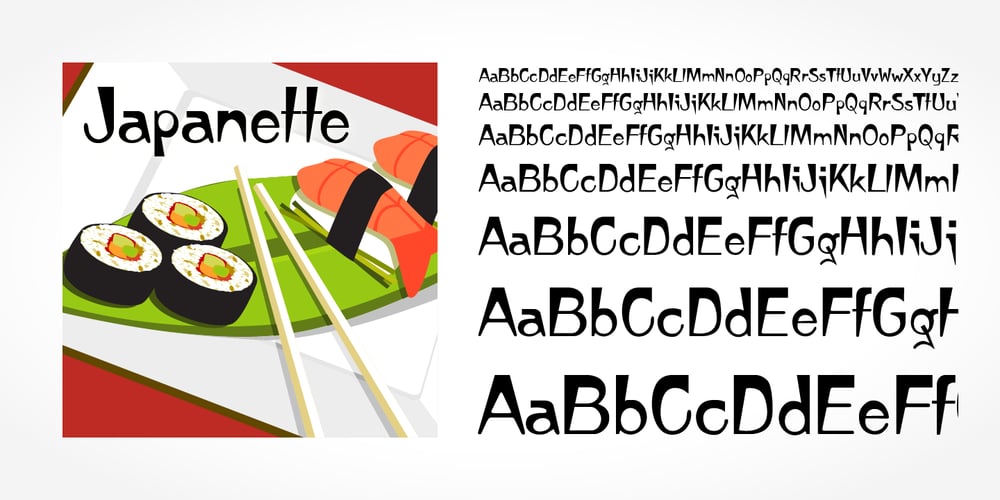
Japanette Font Family was designed by published by SoftMaker. Japanette contains 1 styles and family package options. Japanette is a vaguely oriental typeface published by SoftMaker.